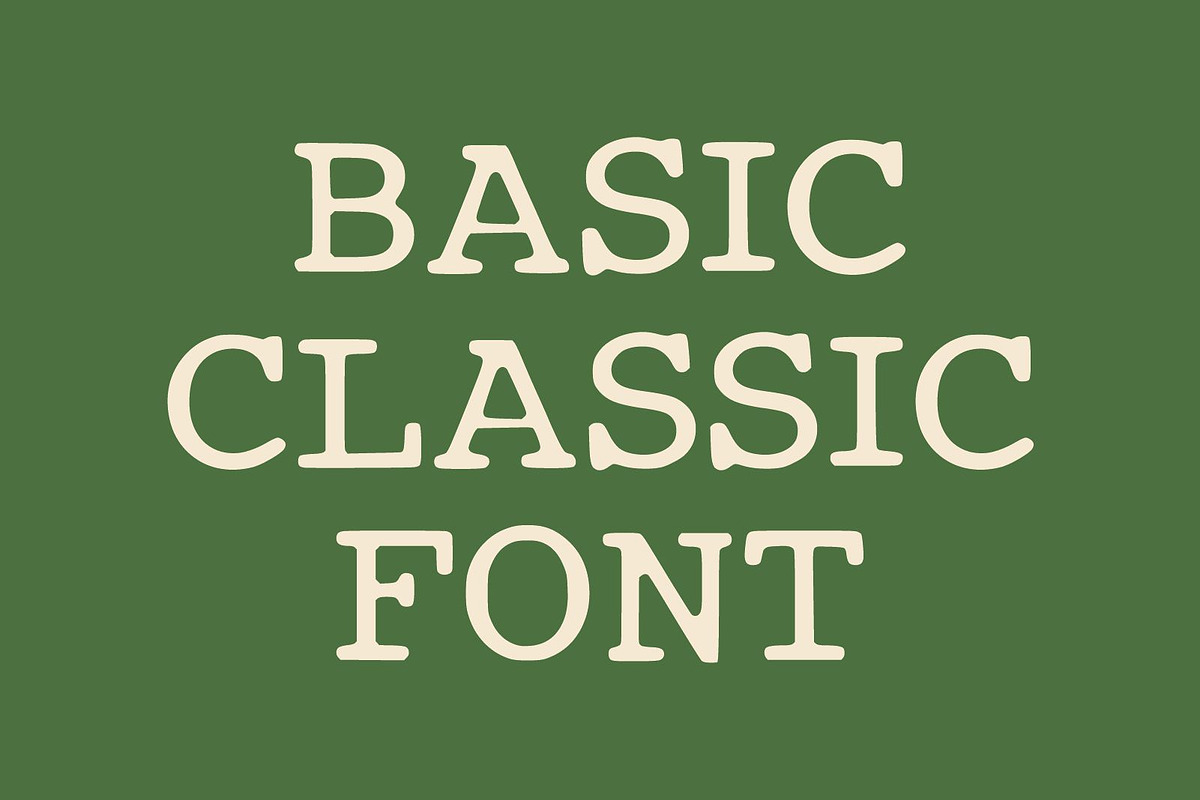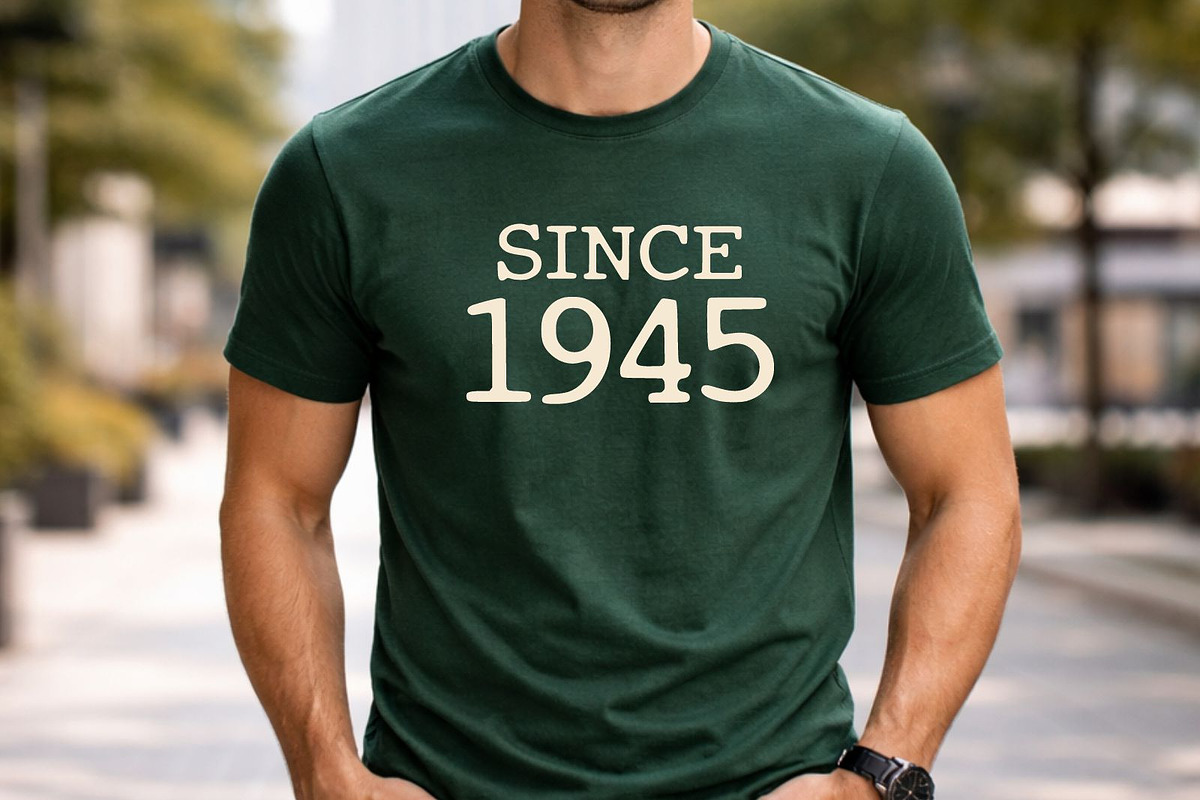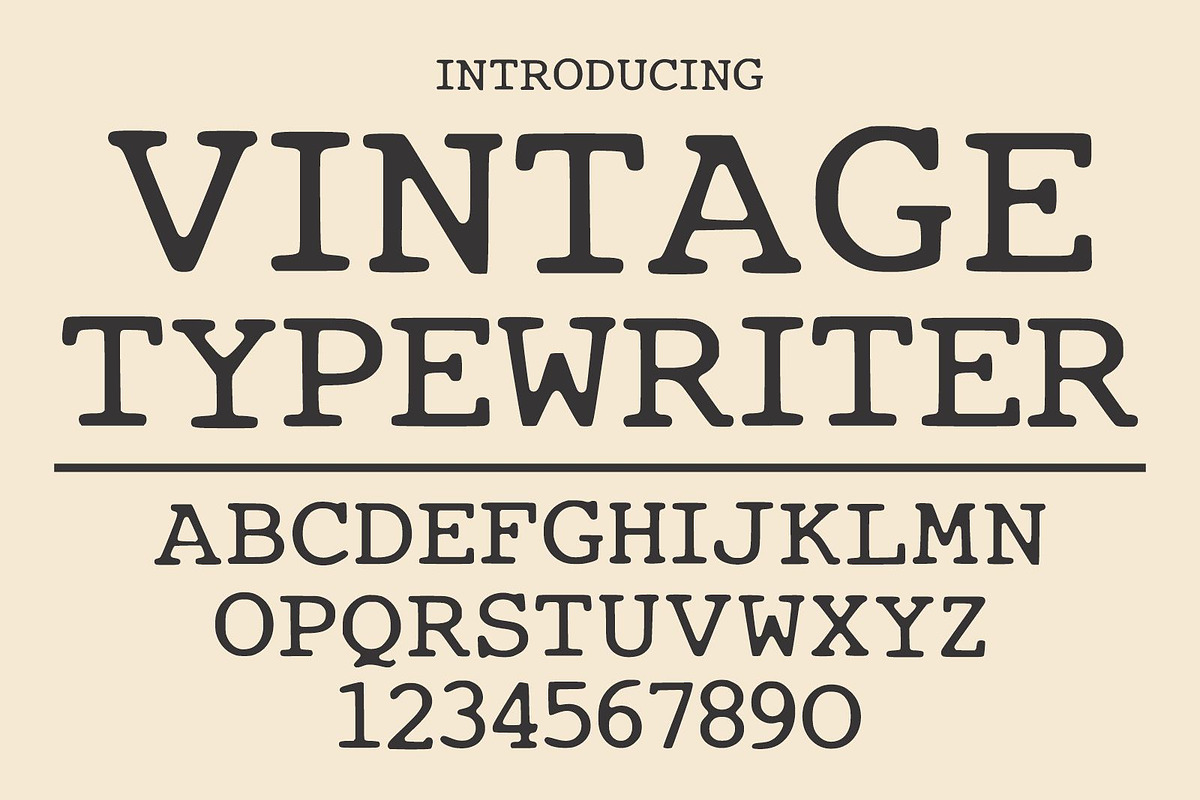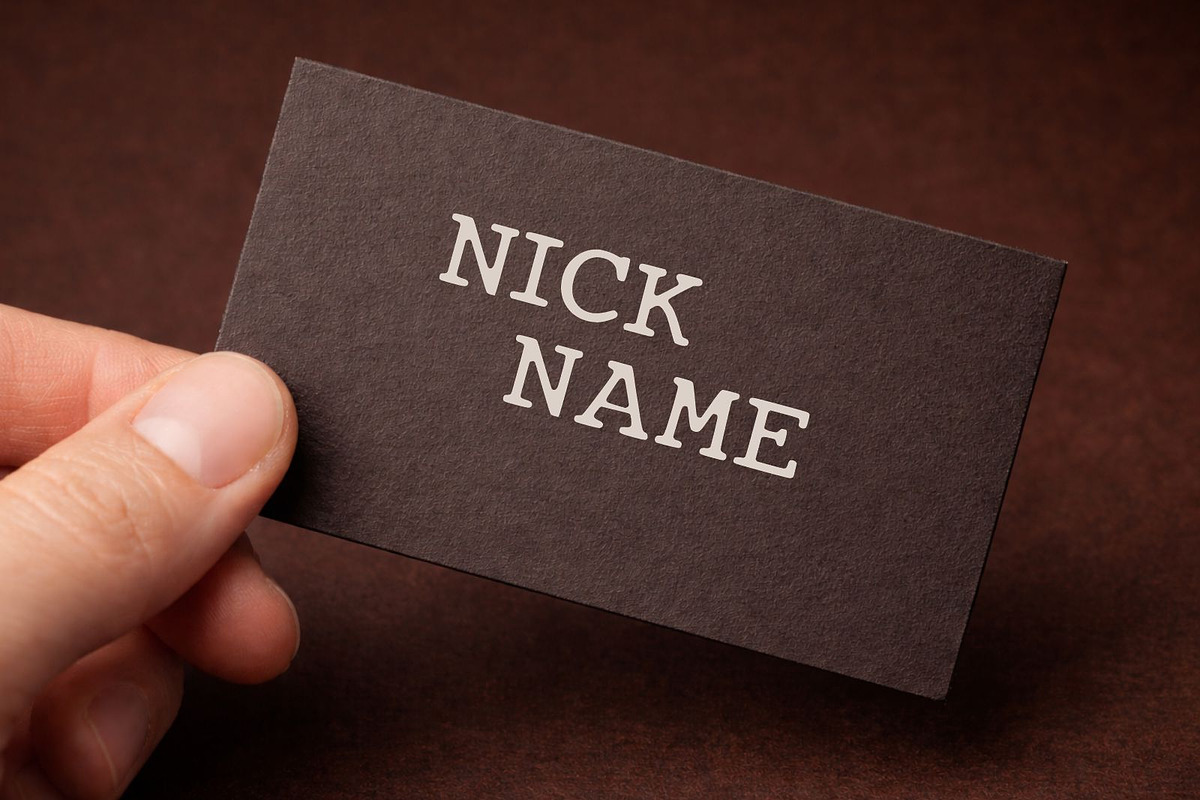
Vintage Typewriter
Vintage Typewriter is a classic retro serif font inspired by traditional typewriter lettering and old editorial typography. With its clean structure and timeless character shapes, this font brings an authentic vintage writing machine feel to any design. Perfect for book covers, posters, editorial layouts, branding, logos, packaging, quotes, and retro-themed projects. Vintage Typewriter adds a nostalgic and professional touch that recreates the charm of classic typing and old printed documents.